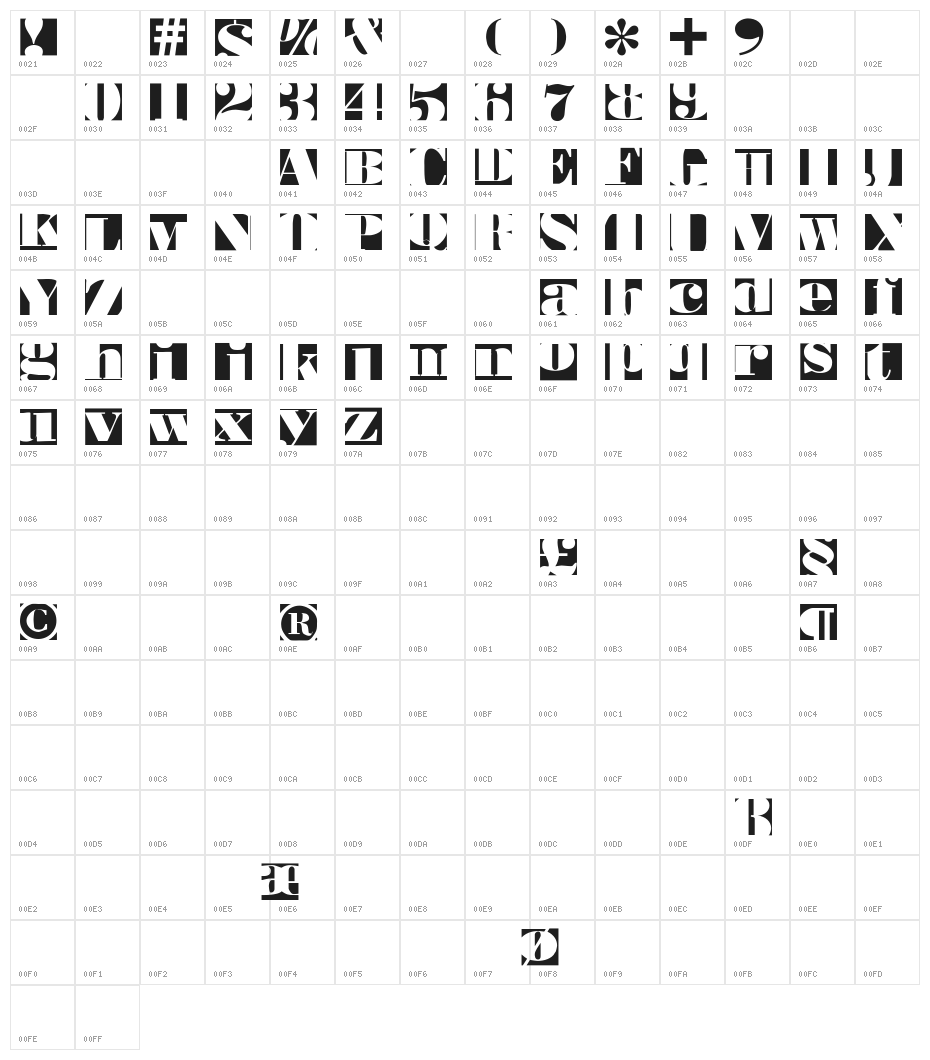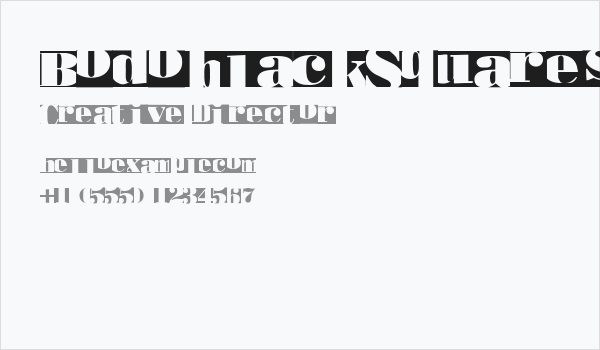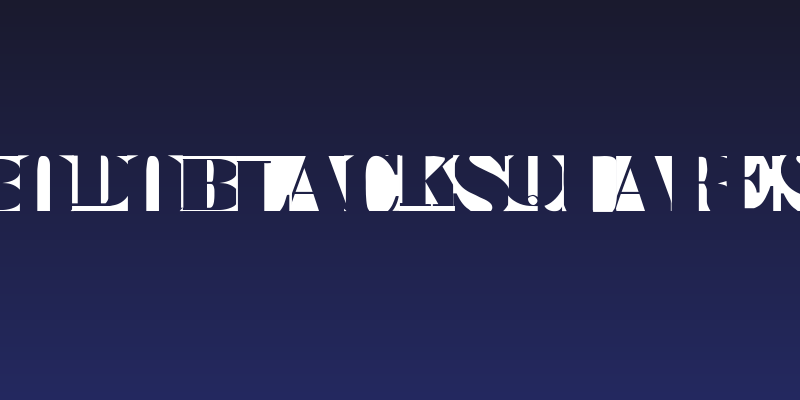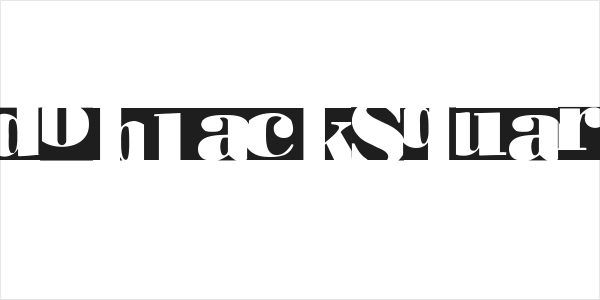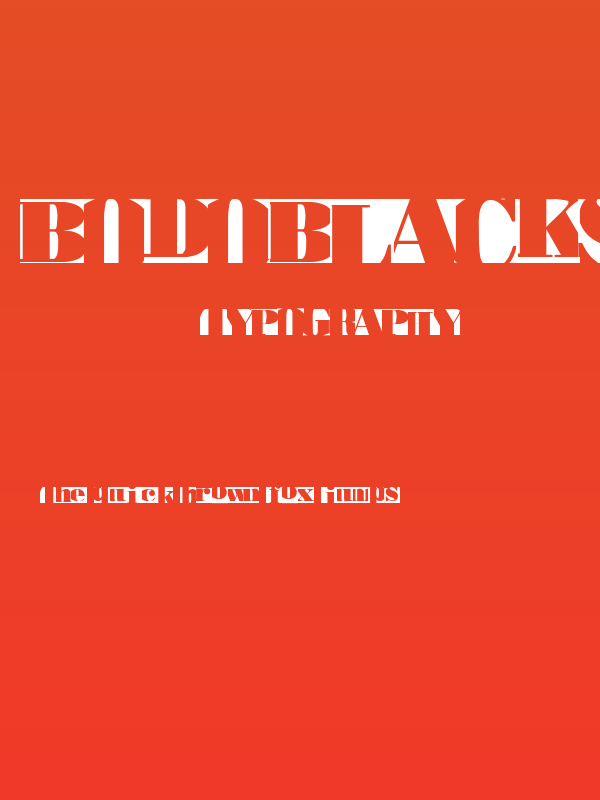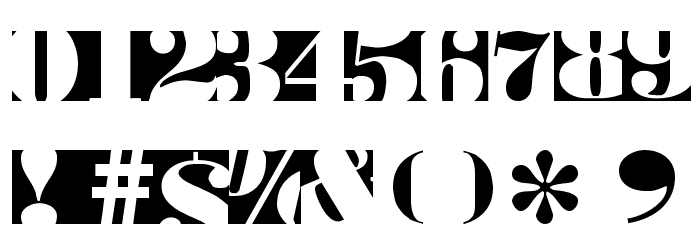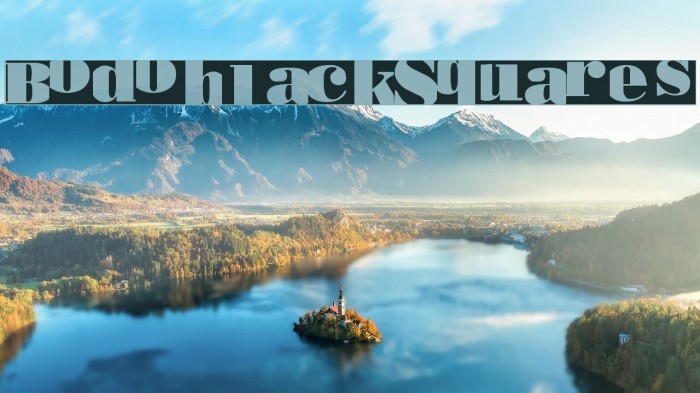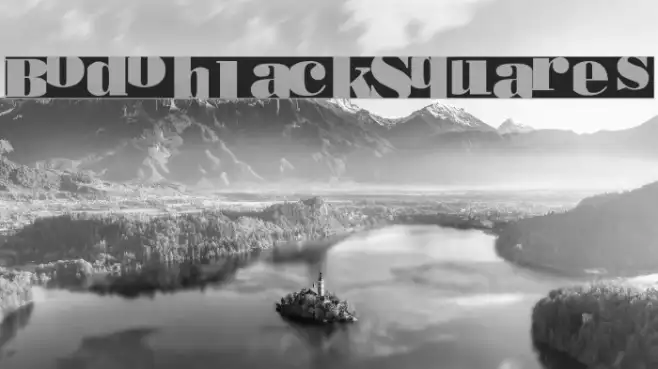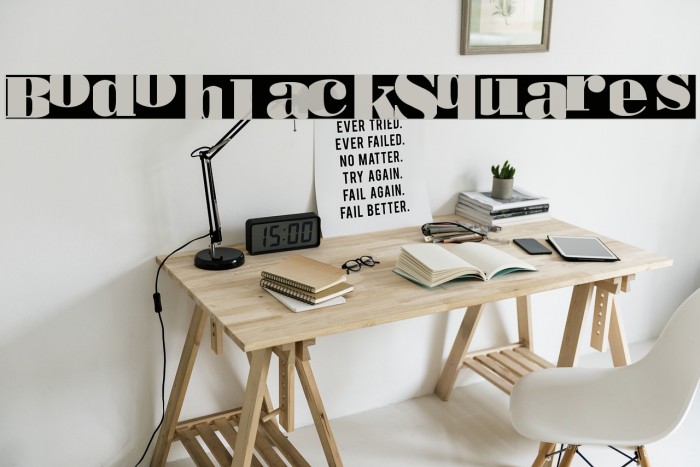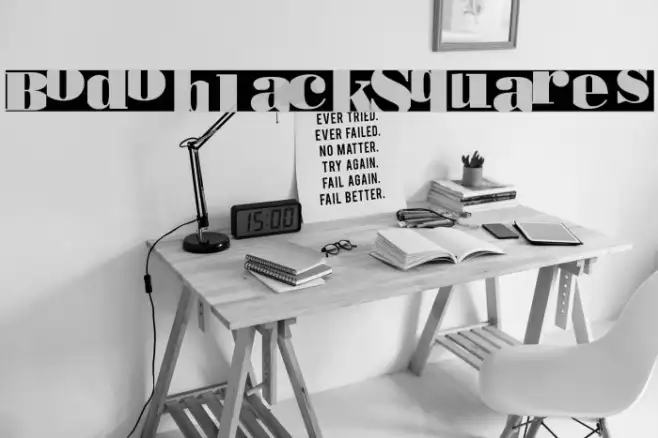
BodoblackSquares Font
BodoblackSquares Description
This font features a bold and striking design with a unique stencil-like appearance. The characters are composed of solid black squares with cut-out sections, creating a visually engaging and modern look. The uppercase and lowercase letters maintain a consistent style, with geometric shapes and sharp angles. The numbers and special characters follow the same design principles, ensuring uniformity across all glyphs. This font's distinctive style makes it ideal for projects that require a strong visual impact.
| Proposed Projects | Ideal for posters, branding, and any design work that needs a bold, modern aesthetic. |